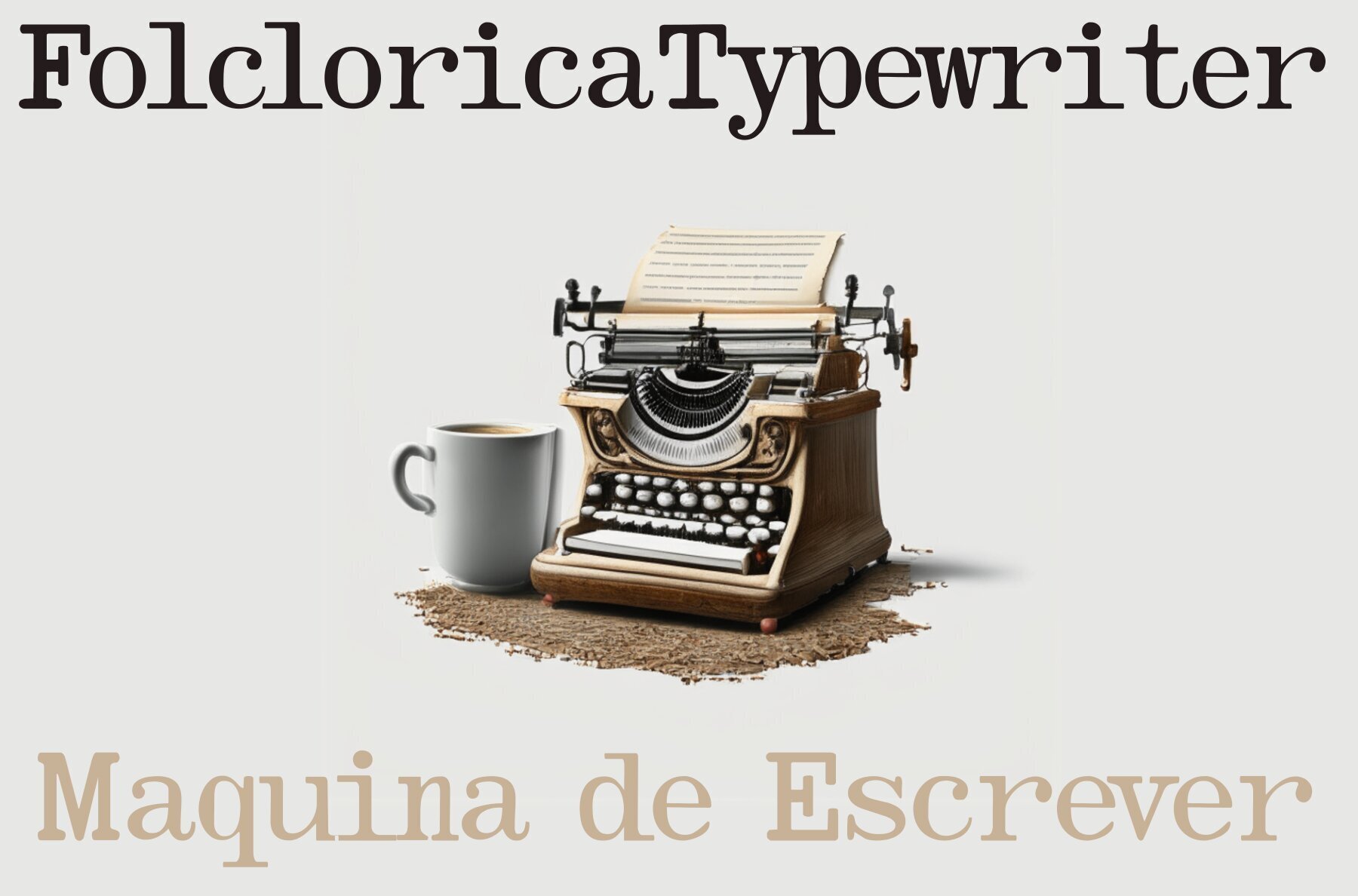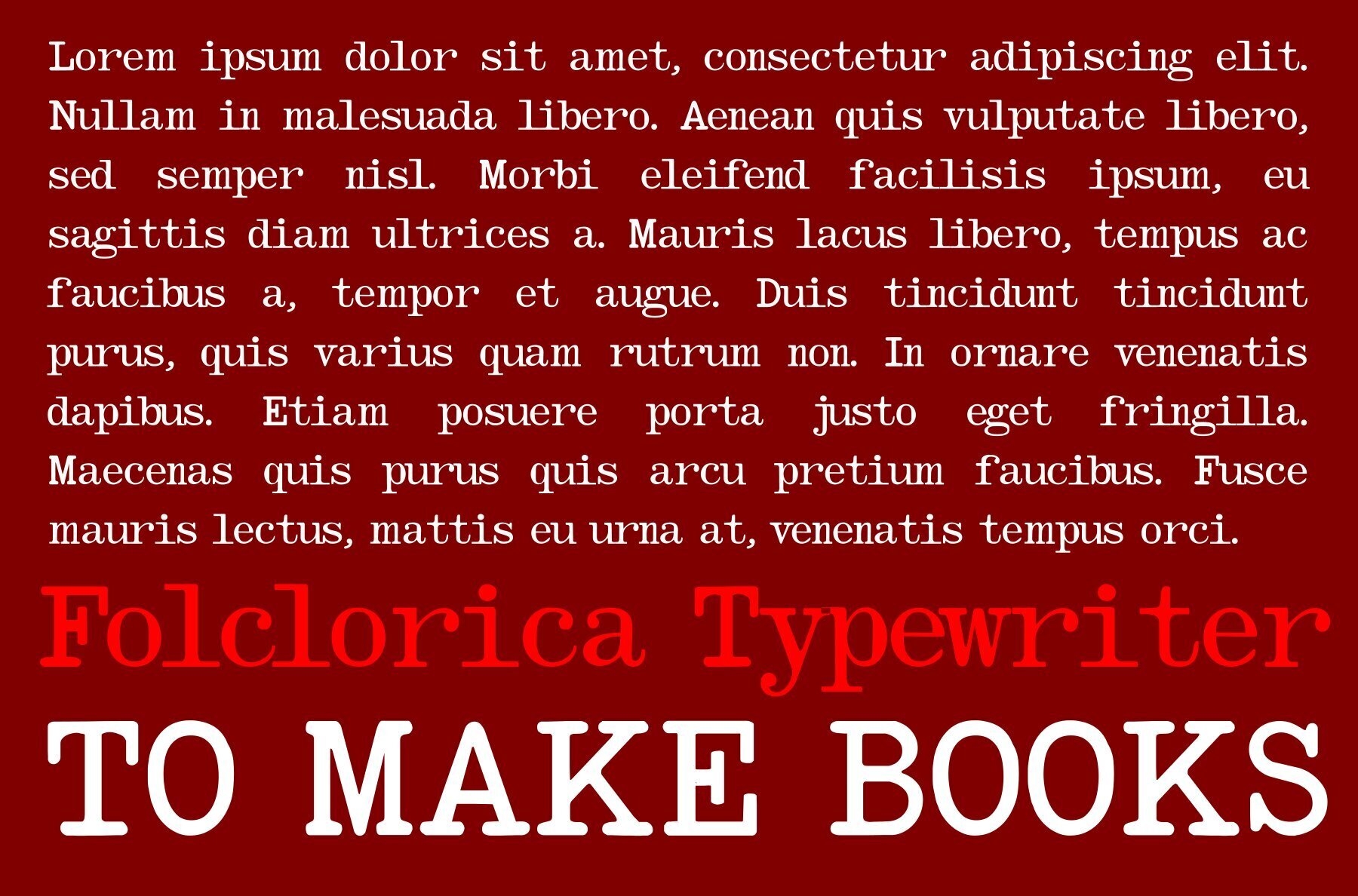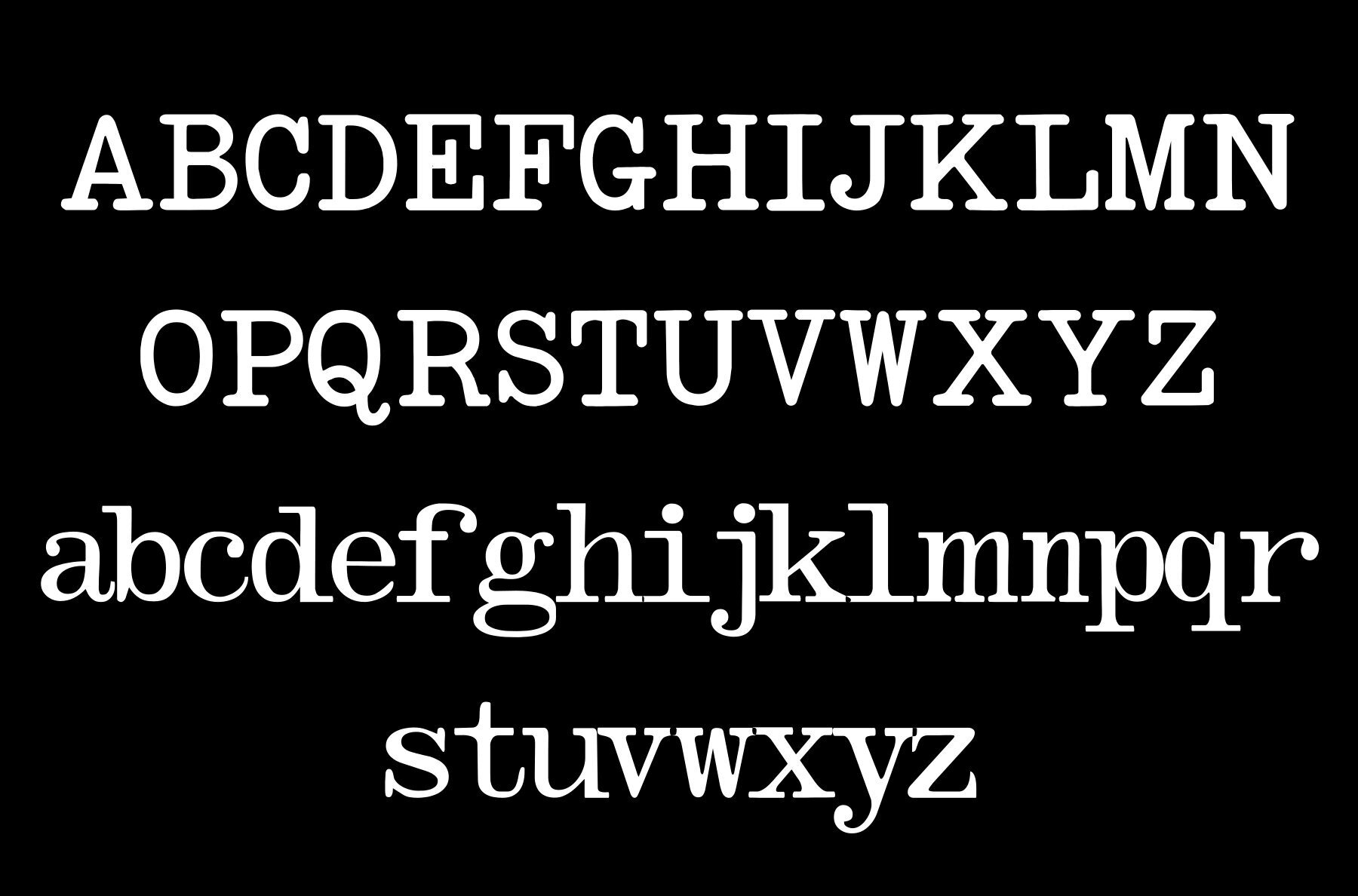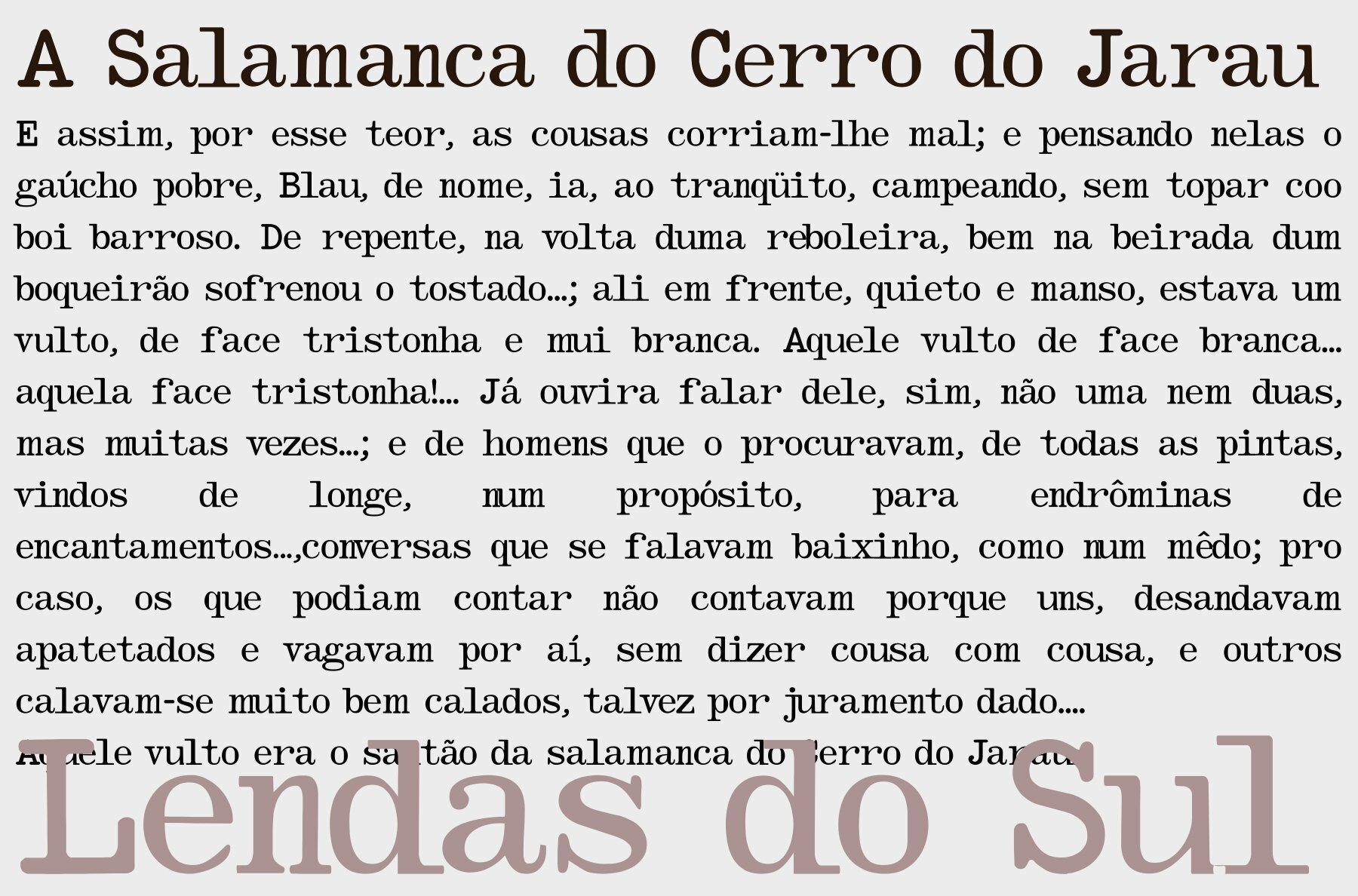
Folclorica Typewriter Font
Folclorica Typewriter Regular
The Folclorica Typewriter is a unique typewriter font design, great for mimicking the effect of typewriting older machines. Has an erased and much-inked style, good for exquisite designs.